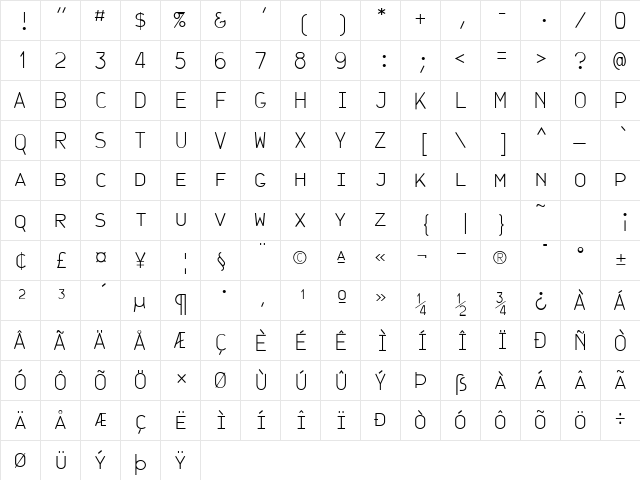
JetJaneMonoCapsThin Regular
Design Context for JetJaneMonoCapsThin Typeface
JetJaneMonoCapsThin uses fixed-width spacing throughout, giving it the structured, systematic character associated with coding environments and technical documentation. Its slender proportions lend an understated elegance to any composition.
A natural fit for code editors, technical documentation, developer-focused branding, and terminal-inspired UI.
Pro Tip: Pair JetJaneMonoCapsThin with a proportional sans for UI contexts where code-style labels and regular body copy need to coexist.